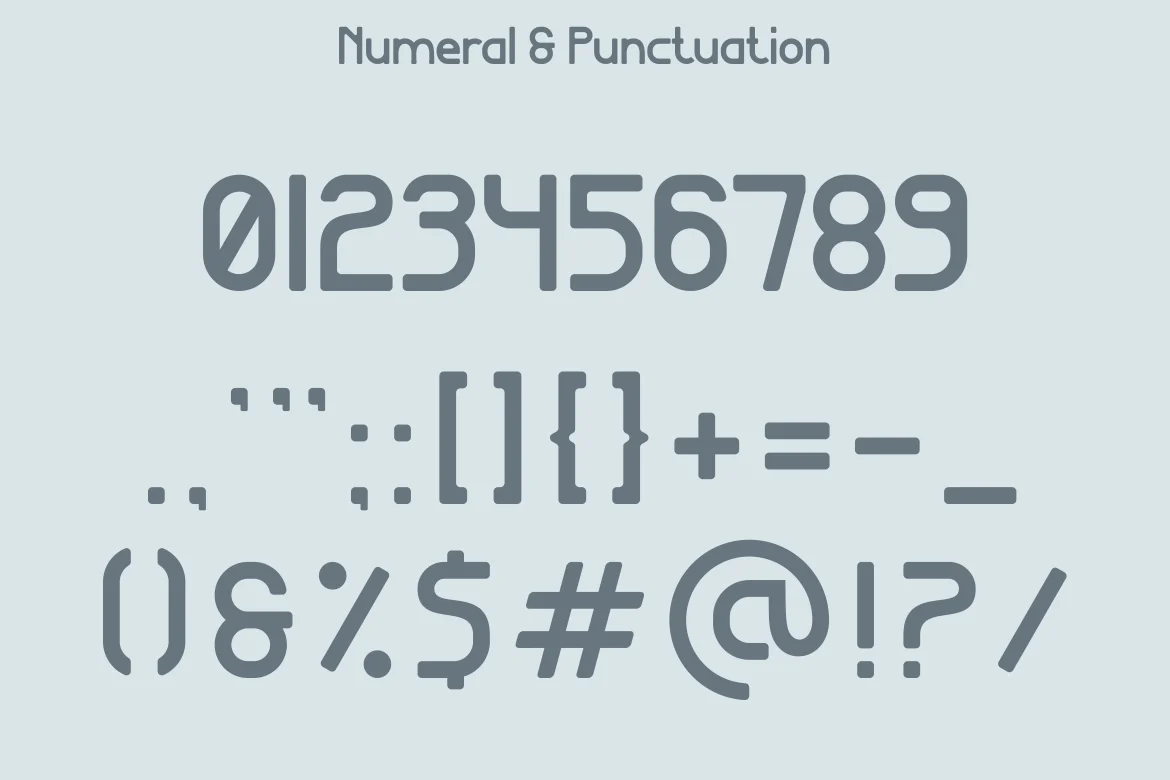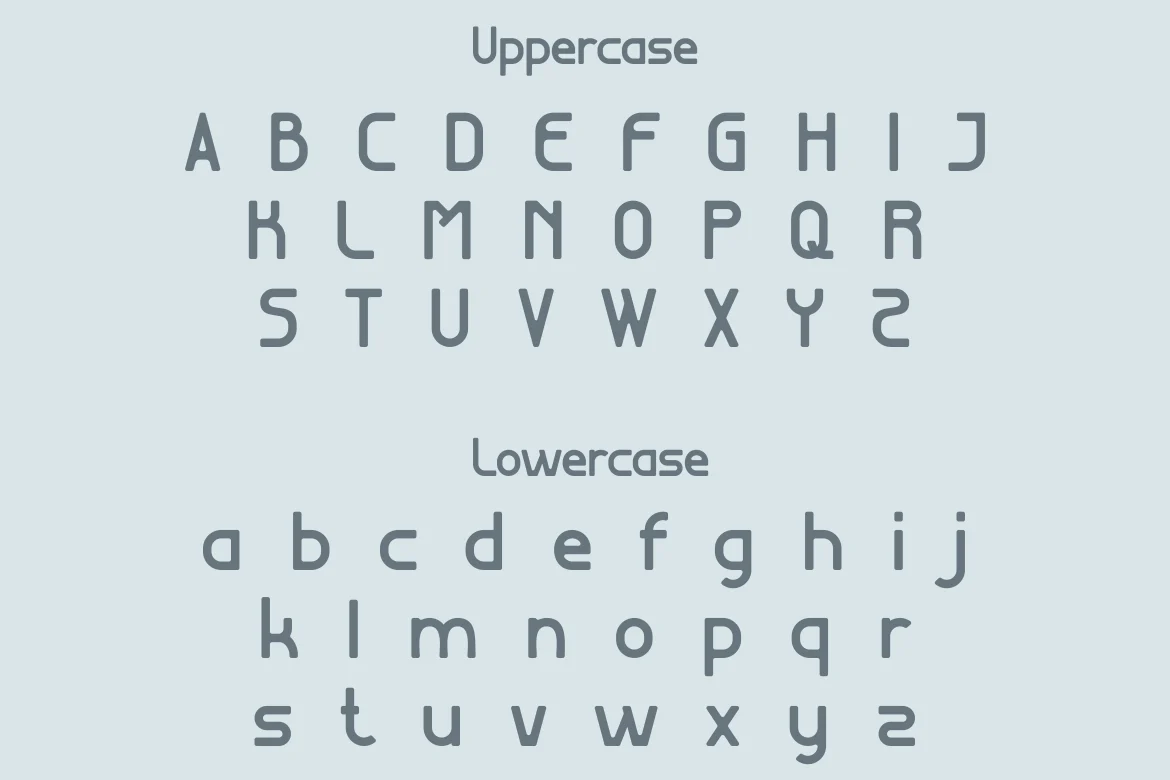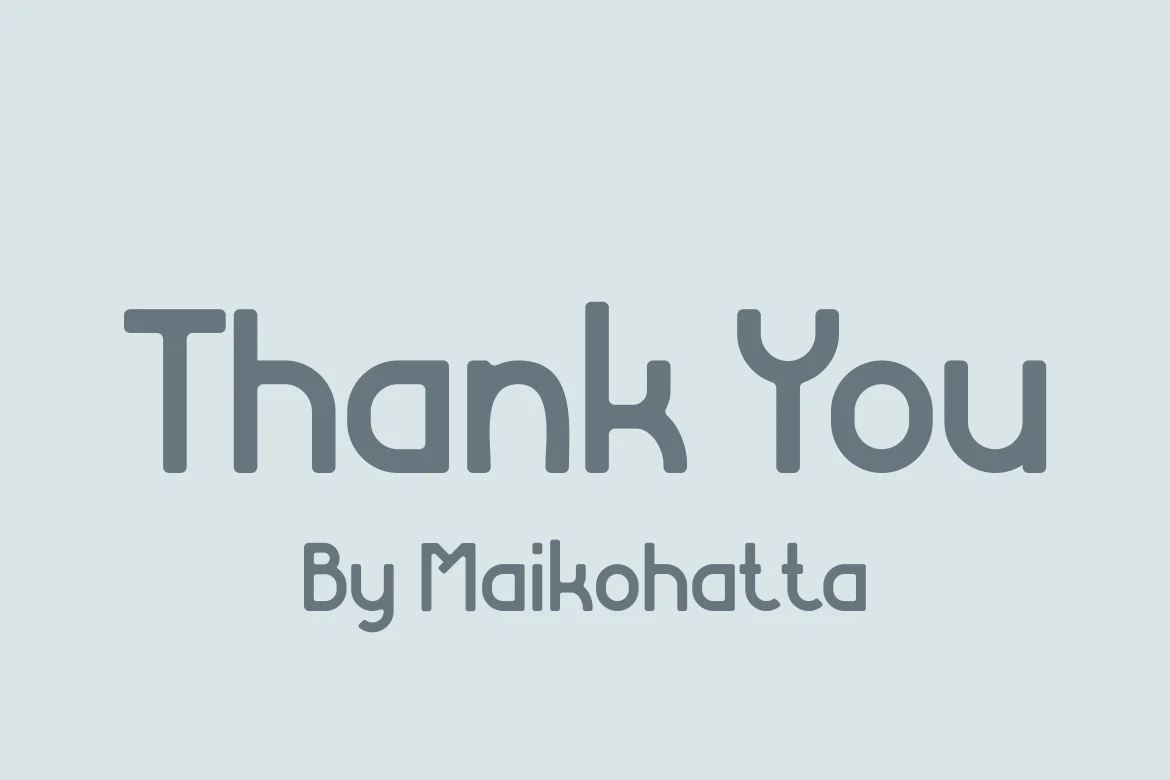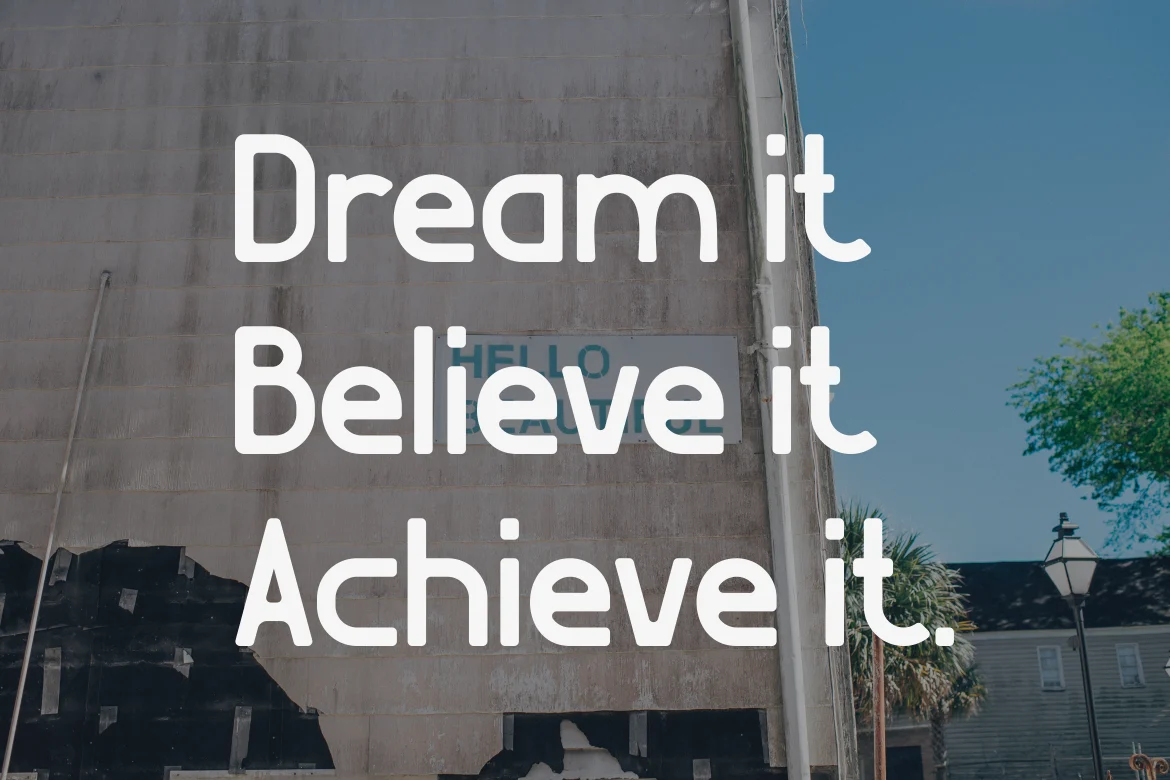
VERDUGO Font
Introducing our new product VERDUGO Font - Modern Font
VERDUGO Font - Modern Font is a bold and authentic display font. The font is suitable for any branding project like logo, t-shirt printing, esport, and many more. outstanding in a wide range of contexts.